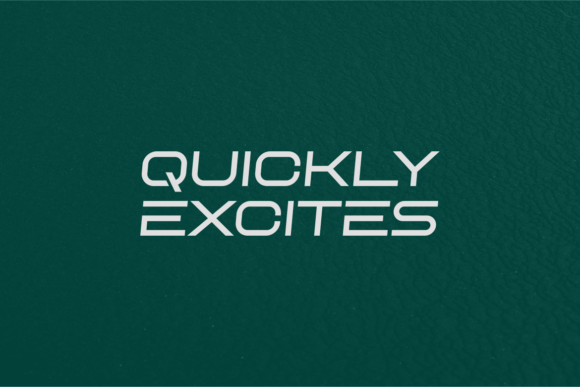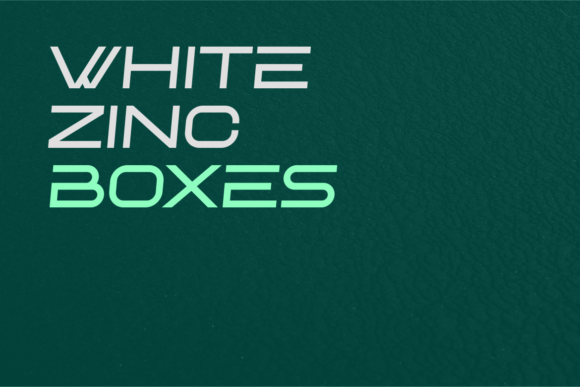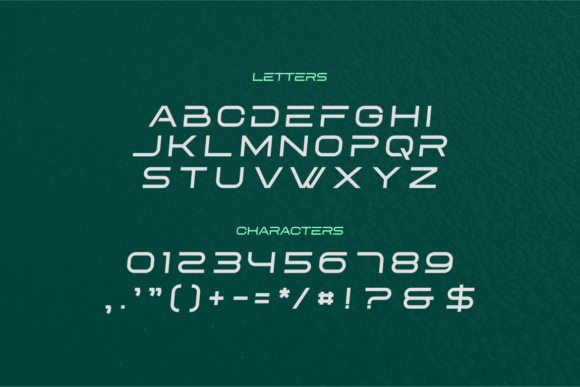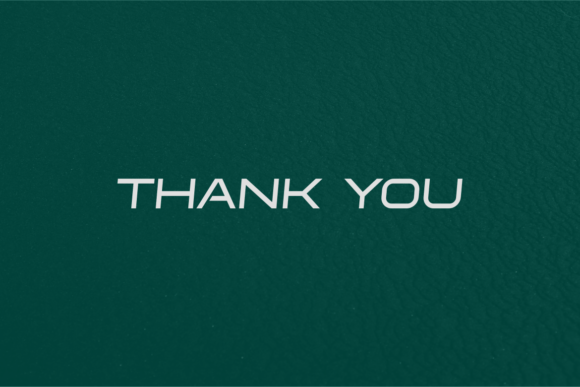
The Perfect Font for Your Next Big Idea
You know that feeling when you’re brainstorming a new project, and suddenly, the perfect idea hits you? The excitement is palpable, and you can’t wait to bring it to life. For designers, this moment is a thrill unlike any other. It’s the spark that ignites creativity and sets the wheels in motion. But, have you ever struggled to find the perfect font to match the energy and enthusiasm of your idea?
Enter Jexcites Font, a modern and whimsical display font that’s designed to elevate your creative vision to new heights. With its unique style, Jexcites Font is the perfect tool to help you express your ideas in a way that’s both visually striking and emotionally resonant. Whether you’re working on a logo, a marketing campaign, or a graphic novel, Jexcites Font is the perfect addition to your design arsenal.
Jexcites Font Key Features
- Font Family: Jexcites is a modern sans-serif font family, suitable for various design applications.
- Character Set: Supports a wide range of languages, including Latin, Cyrillic, and Greek scripts, with over 1000 glyphs.
- Unique Characteristics: Jexcites font features a unique blend of geometric and organic shapes, resulting in a distinctive and modern aesthetic.
Jexcites Font Review
I was excited to dive into the world of Jexcites Font, but unfortunately, my expectations weren’t entirely met. ✨ While the font does have some great qualities, it falls short in a few key areas.
- Unique design**: Jexcites Font boasts a distinctive, eye-catching style that can help your design stand out from the crowd.
- Wide range of styles**: The font family comes in a variety of styles, from casual to formal, making it a versatile choice for different projects.
- Highly customizable**: Jexcites Font allows for easy customization, making it easy to adjust the font to fit your specific design needs.
- Readability issues**: At certain font sizes, Jexcites Font can be difficult to read, particularly in body text.
- Over-reliance on bold text**: While the font’s bold style is visually appealing, it can make text look too heavy-handed in some cases.
While Jexcites Font has its strengths, its limitations hold it back from being a top choice for designers. If you’re looking for a unique font with a lot of customization options, Jexcites Font might be worth considering. However, if you prioritize readability and compatibility, you may want to look elsewhere.
Tips for Getting the Most Out of Jexcites Font
Use Jexcites Font to add a touch of elegance and sophistication to your designs.
Pair Jexcites Font with other elegant fonts to create a cohesive look.
Use Jexcites Font for:
Business cards and letterheads.
Editorial and publishing designs.
Any design project that requires a
Alternatives to Jexcites Font
Playfair Display is an elegant, luxurious serif font ideal for use in titles, headings, and other high-impact text elements. It’s perfect for creating a sophisticated and refined aesthetic in magazines, books, and other publications.
Comparison to Jexcites Font: While Jexcites Font is a modern sans-serif font, Playfair Display is a classic serif font with a more traditional look. It’s better suited for formal or high-end designs, whereas Jexcites Font is more versatile and suitable for modern and minimalist designs.